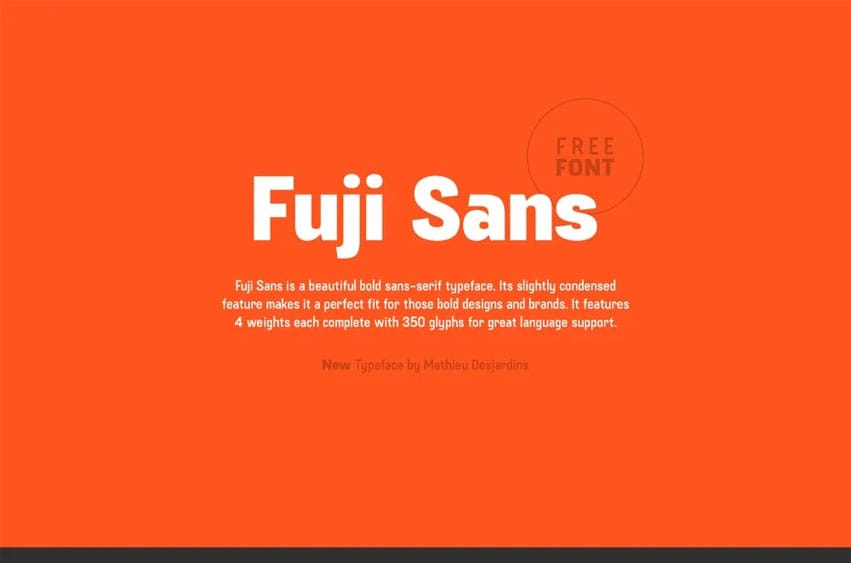
Fuji Sans Font very much, it is a nice typeface.
Due to its somewhat condensed design, it would be perfect for visually striking projects; four styles – regular, italic, bold and bold italic – will include 350 characters that can be used in many languages.